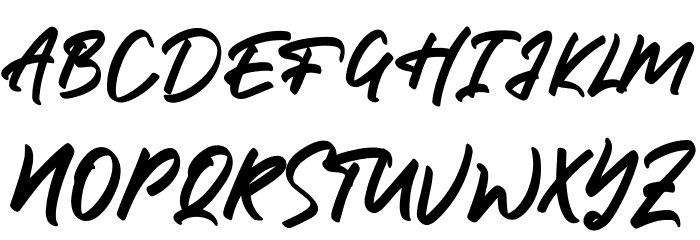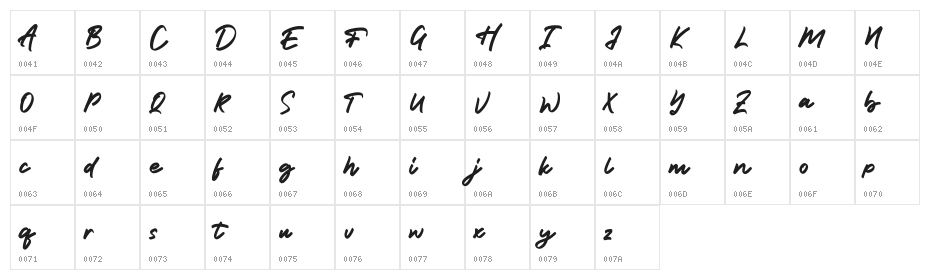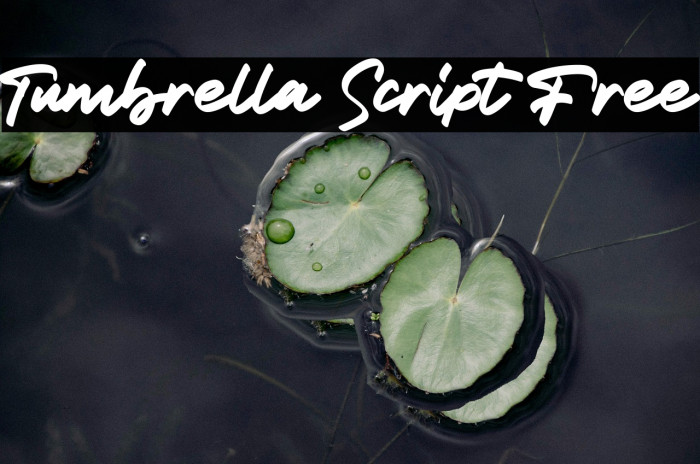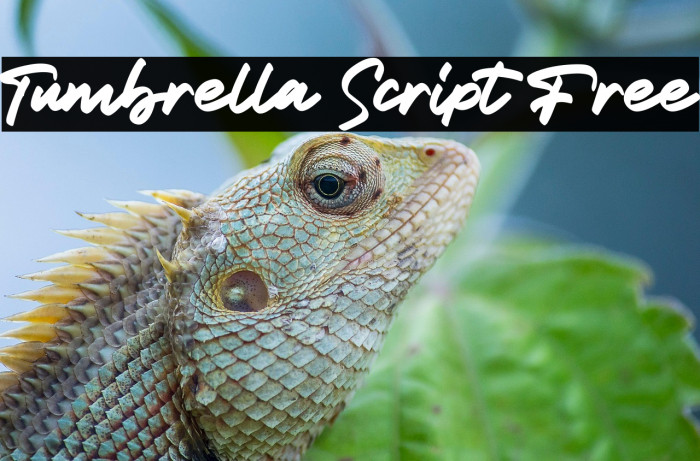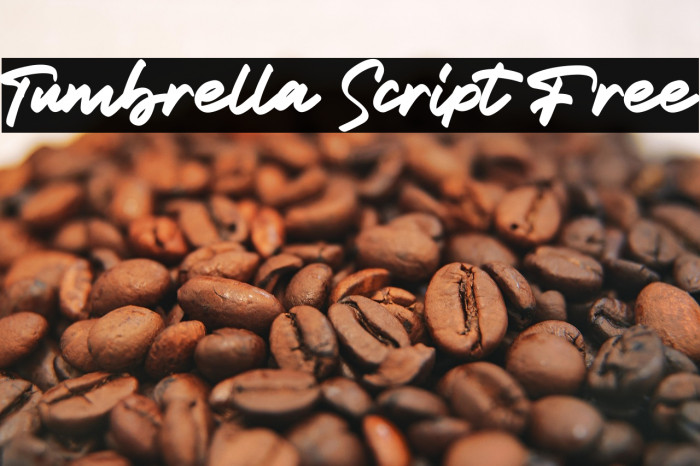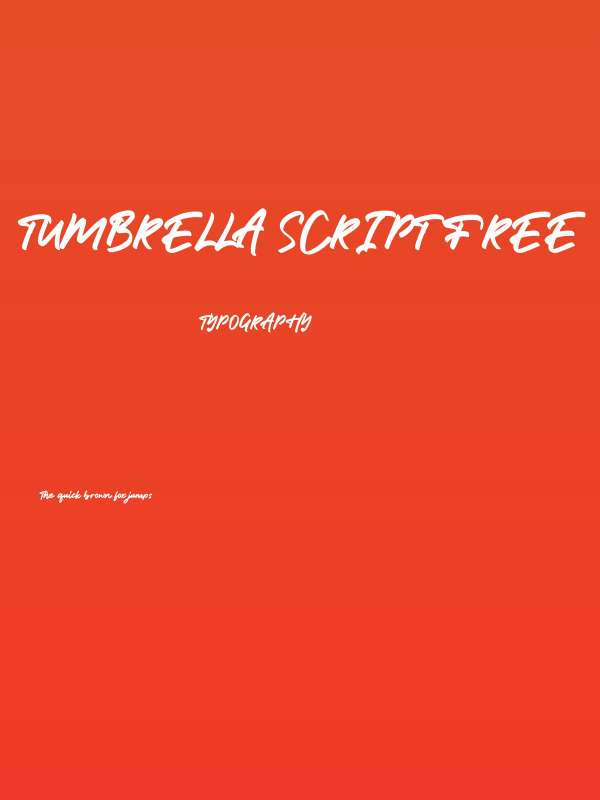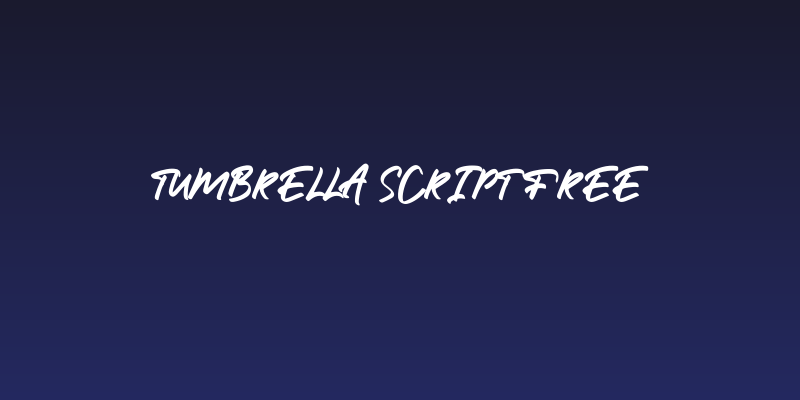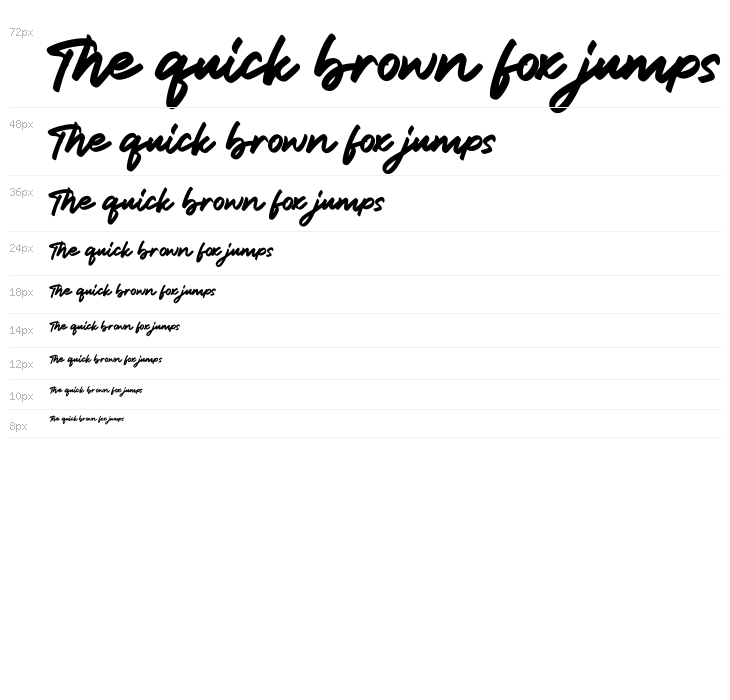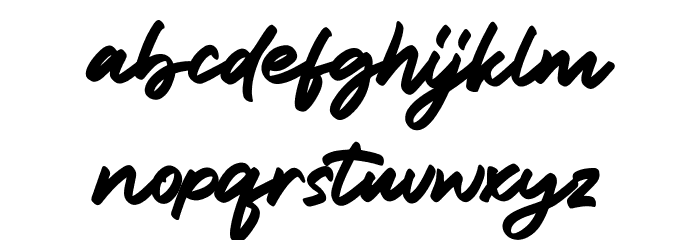
Tumbrella Script Free Font
Tumbrella Script Free Description
This font features a dynamic and fluid script style, characterized by its bold and expressive strokes. The letters are interconnected, creating a sense of movement and elegance. The uppercase characters are slightly larger and more pronounced, while the lowercase letters maintain a consistent flow. The overall appearance is both artistic and modern, making it suitable for creative and eye-catching designs. The font's style is reminiscent of handwritten calligraphy, with a contemporary twist that adds a unique flair to any project.